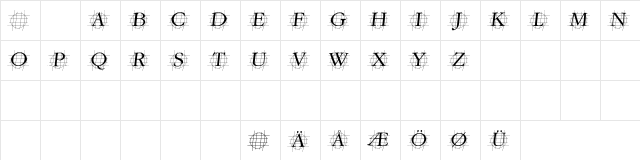
GrafOblique Italic
Design Context for GrafOblique Typeface
GrafOblique offers clean, dependable letterforms without strong stylistic allegiance, making it a practical choice for designers who need flexibility. The slanted form adds forward momentum and visual energy.